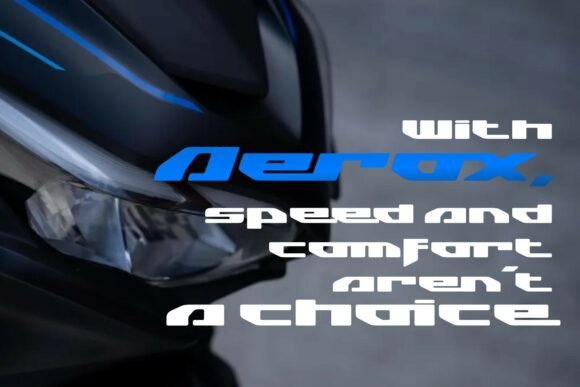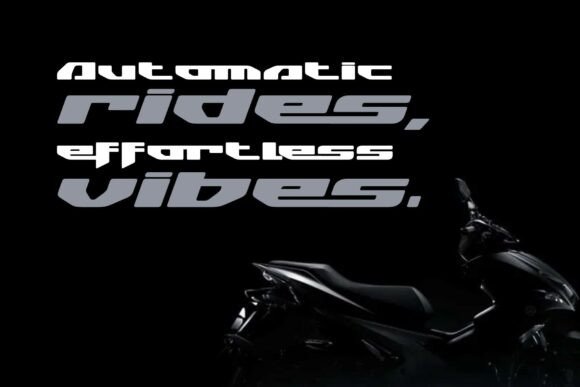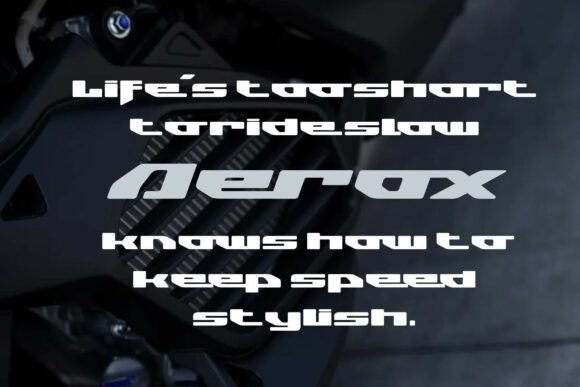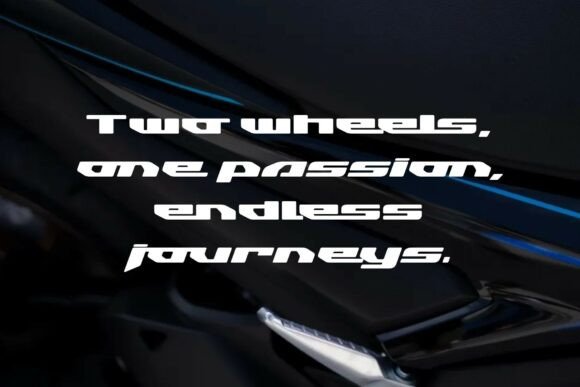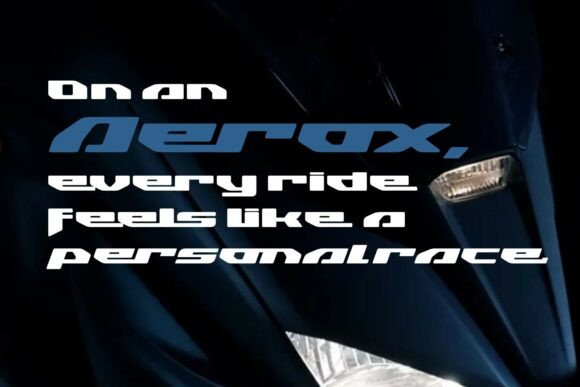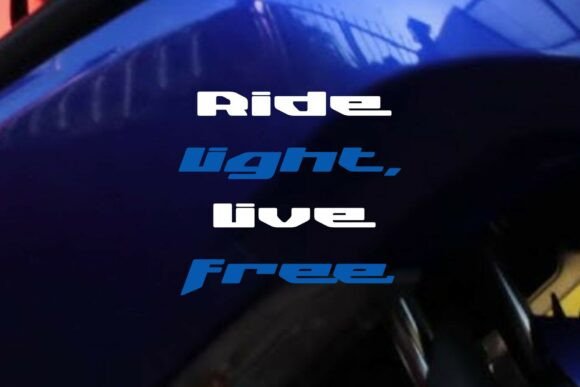
Aerox Font: Elevate Your Designs with a Futuristic Twist
In the realm of typography, fonts play a pivotal role in shaping the visual identity of a brand, product, or creative project. Among the myriad of fonts available, Aerox stands out as a modern display font that embodies a bold, futuristic character. Its unique design, characterized by clean geometric shapes, smooth rounded corners, and aerodynamic letter cuts, evokes a strong sense of speed, technology, and modernity.
The Design Philosophy of Aerox
Aerox’s design is rooted in the principles of modernity and futurism. Each character is meticulously crafted with unique proportions that give the font a striking and distinctive visual presence. The clean geometric shapes and smooth rounded corners contribute to a sense of fluidity and dynamism, while the aerodynamic letter cuts enhance the font’s sense of speed and agility.
Versatility and Applications
Aerox is an incredibly versatile font, suitable for a wide range of creative applications. Its bold and futuristic character makes it an ideal choice for:
- Automotive Branding: Aerox’s aerodynamic design and sense of speed make it a perfect fit for automotive brands looking to convey a sense of power and performance.
- Technology Projects: The font’s futuristic character and clean design make it well-suited for technology-related projects, such as software, hardware, or tech startups.
- Esports: Aerox’s bold and dynamic design makes it an excellent choice for esports teams, events, or gaming-related projects.
- Posters and Print Materials: The font’s striking visual presence makes it perfect for creating eye-catching posters, flyers, or other print materials.
- UI/UX Design: Aerox’s clean and modern design makes it an excellent choice for UI/UX designers looking to create intuitive and visually appealing interfaces.
- Logos and Branding: The font’s unique character and versatility make it an ideal choice for creating logos and branding materials that require a bold and futuristic look.
- Futuristic-Themed Visuals: Aerox’s futuristic design makes it perfect for creating visuals that require a sense of futurism, such as sci-fi projects, concept art, or futuristic-themed designs.
Aerox offers several key features and benefits that make it an attractive choice for designers and crafters:
- Powerful and Professional Appearance: The font’s bold and futuristic character helps designs stand out while reinforcing a modern and innovative identity.
- Easy to Read: Despite its bold design, Aerox remains easy to read, making it suitable for use in a variety of contexts.
In conclusion, Aerox is a modern display font that offers a unique blend of style, versatility, and functionality. Its bold and futuristic character makes it an ideal choice for a wide range of creative applications, from automotive branding and technology projects to esports and futuristic-themed visuals. With its multi-format support and powerful appearance, Aerox is an excellent addition to any designer’s toolkit.
Whether you’re a designer, crafter, or simply someone looking to add a touch of futurism to your projects, Aerox is an excellent choice. Its unique design and versatility make it an asset for anyone looking to create visually striking and effective designs. So why wait? Explore the possibilities of Aerox today and take your designs to the next level!